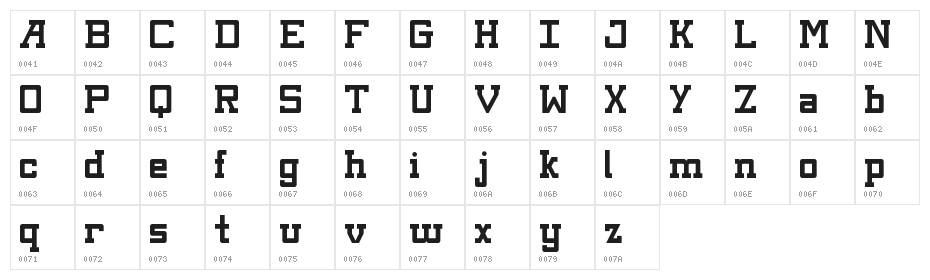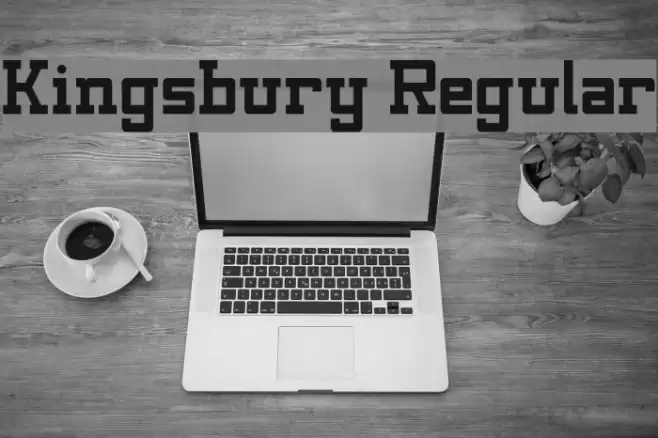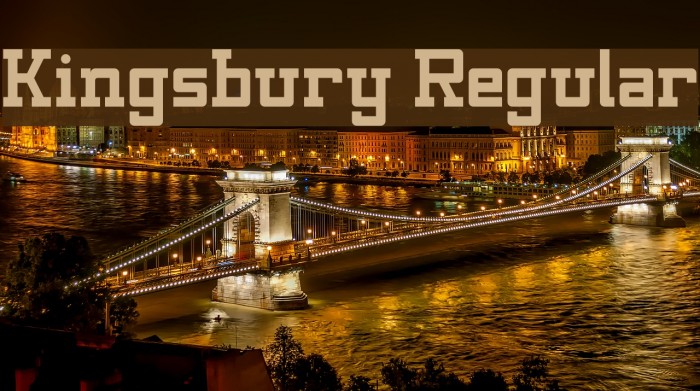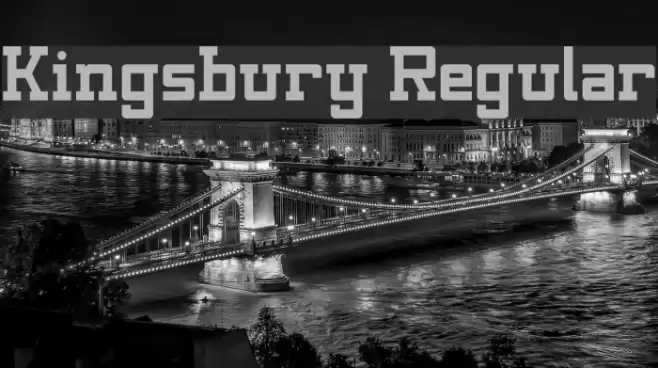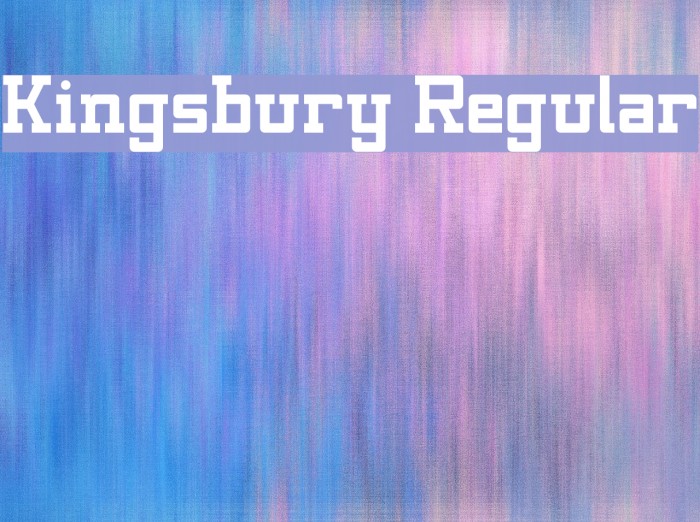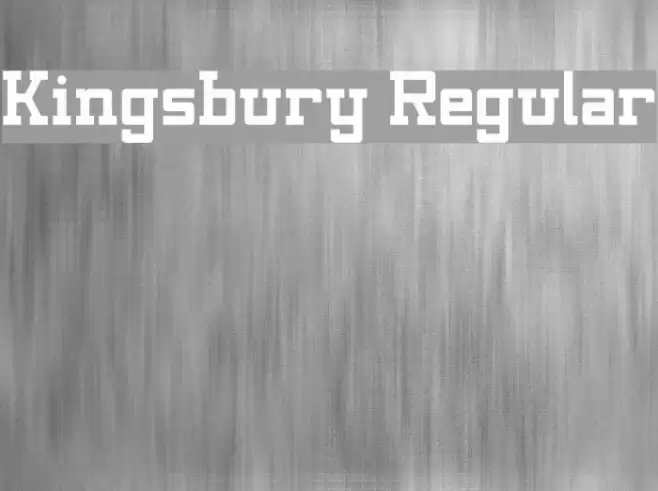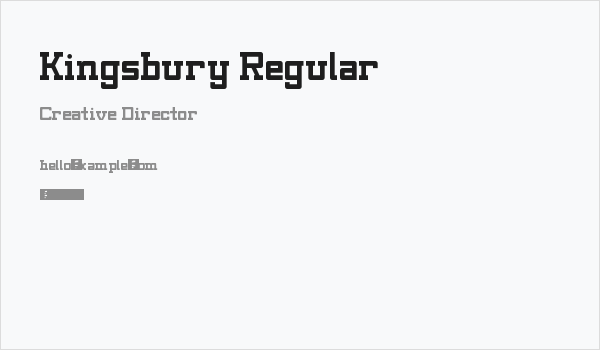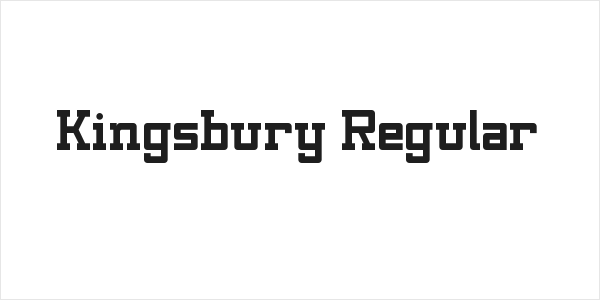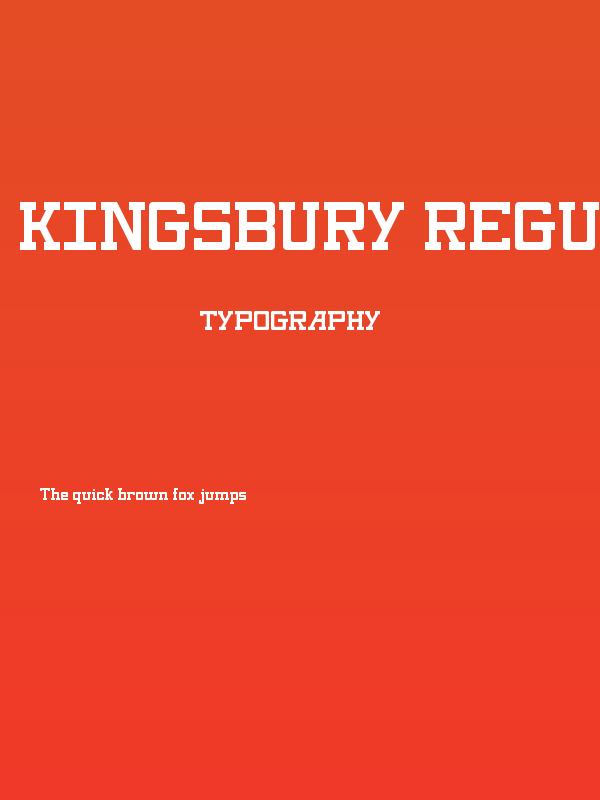
Kingsbury Regular Font
Kingsbury Regular Description
This font features a bold and structured design, characterized by its strong geometric shapes and slab serif elements. The uppercase letters are particularly striking, with a uniform height and width that convey a sense of stability and confidence. The lowercase letters maintain this robust appearance, with consistent stroke thickness and angular serifs that add a touch of elegance. The numerals are equally bold, ensuring readability and impact. Special characters are designed to match the overall aesthetic, making them suitable for a variety of uses. The font's design is reminiscent of vintage typefaces, yet it maintains a modern appeal through its clean lines and balanced proportions.
Overall StyleVintage, Modern
Proposed ProjectsIdeal for branding, headlines, posters, and any design requiring a strong, impactful typeface.